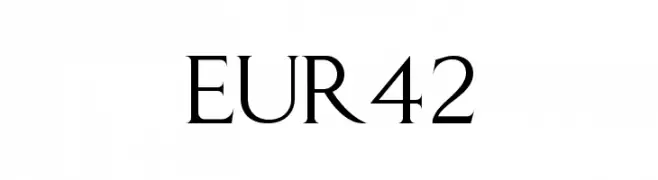
An ornate, decorative font with floral embellishments and calligraphic elements.
A playful, handwritten font with a casual and energetic style.
A diverse set of decorative and plain frame glyphs.
A playful, cloud-themed decorative font with bold, rounded letters.
A whimsical font with letters integrated into airplane designs, perfect for creative projects.
A playful font with wind turbine elements integrated into each character.
A whimsical and decorative font with playful curls and swirls.
A calligraphic mirror writing font with elegant curves and historical charm.
A decorative font with characters inside fish shapes, blending symbolism with typography.
Elegant italic ligatures with smooth, connected strokes and balanced contrast.
An elegant and flowing script font with intricate letterforms and decorative flourishes.
A decorative font with intricate fish illustrations integrated into each character.
A bold serif font with a classic and elegant style.
A whimsical, curly font with playful loops and flourishes.
A dynamic, handwritten-style font with fluid, expressive strokes.
A sophisticated serif font blending classical elegance with modern flair.
A bold, playful sans-serif font with rounded characters and a modern feel.
A bold, serif font with sharp angles and strong vertical strokes.
A bold, elegant script font with flowing curves and intricate loops.
A playful, geometric font with bold lines and curves, blending modern and retro styles.
A collection of intricate, ethnic-inspired geometric dingbat patterns.
An elegant and flowing script font with intricate letterforms and graceful swirls.
A playful, handwritten font with a casual and organic style.
A bold, condensed font with high contrast and sharp serifs, blending modern and classic styles.
A playful, casual handwritten font with irregular strokes and a friendly appearance.
A refined serif font with thin strokes and a classic yet modern aesthetic.
A bold, handwritten-style font with dynamic and expressive strokes.
A bold, expressive handwritten font with high contrast and artistic flair.
A decorative font with ornate uppercase and elegant lowercase letters, blending traditional and modern styles.
A sleek, ultra-light font with geometric precision and modern elegance.